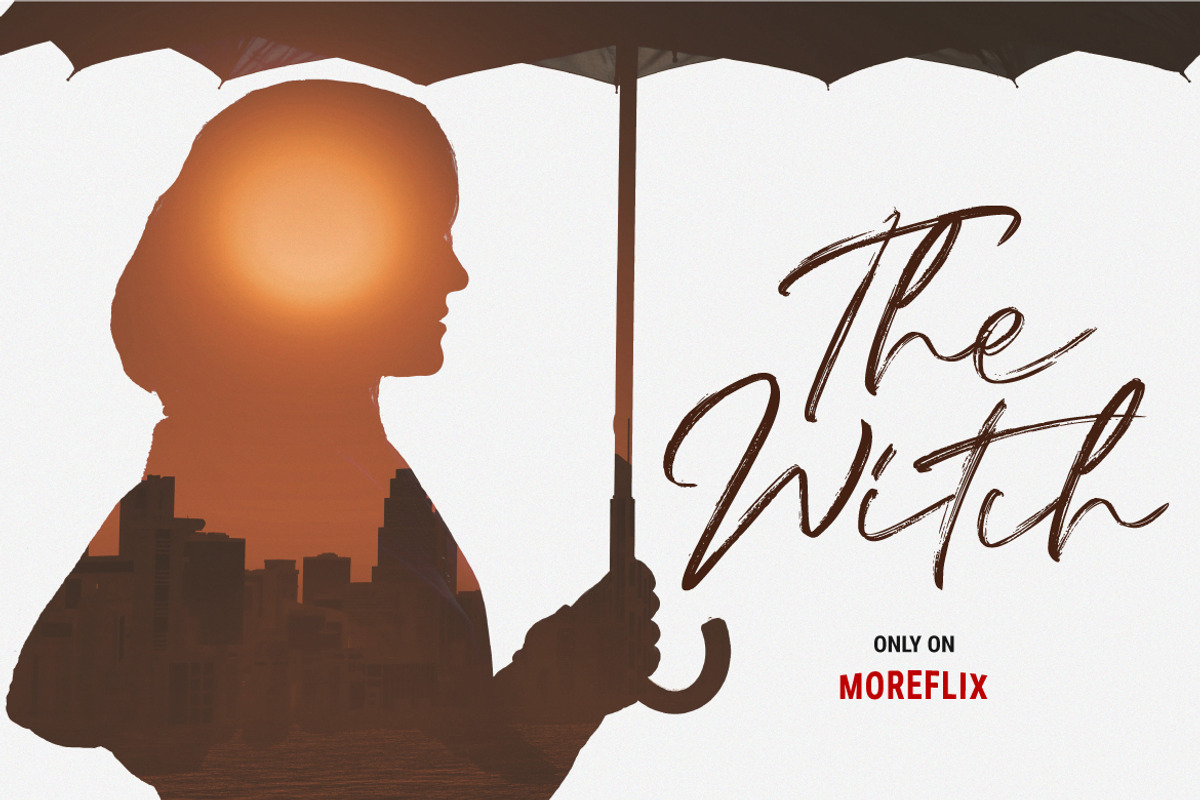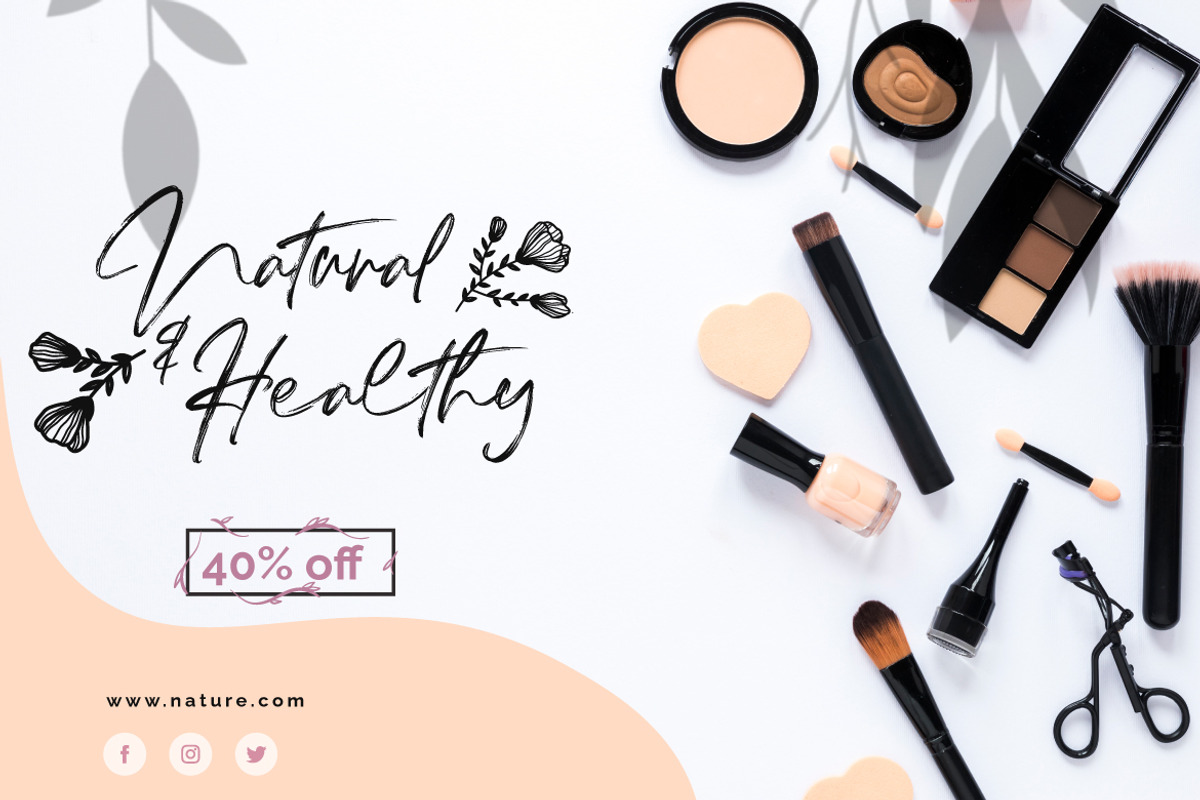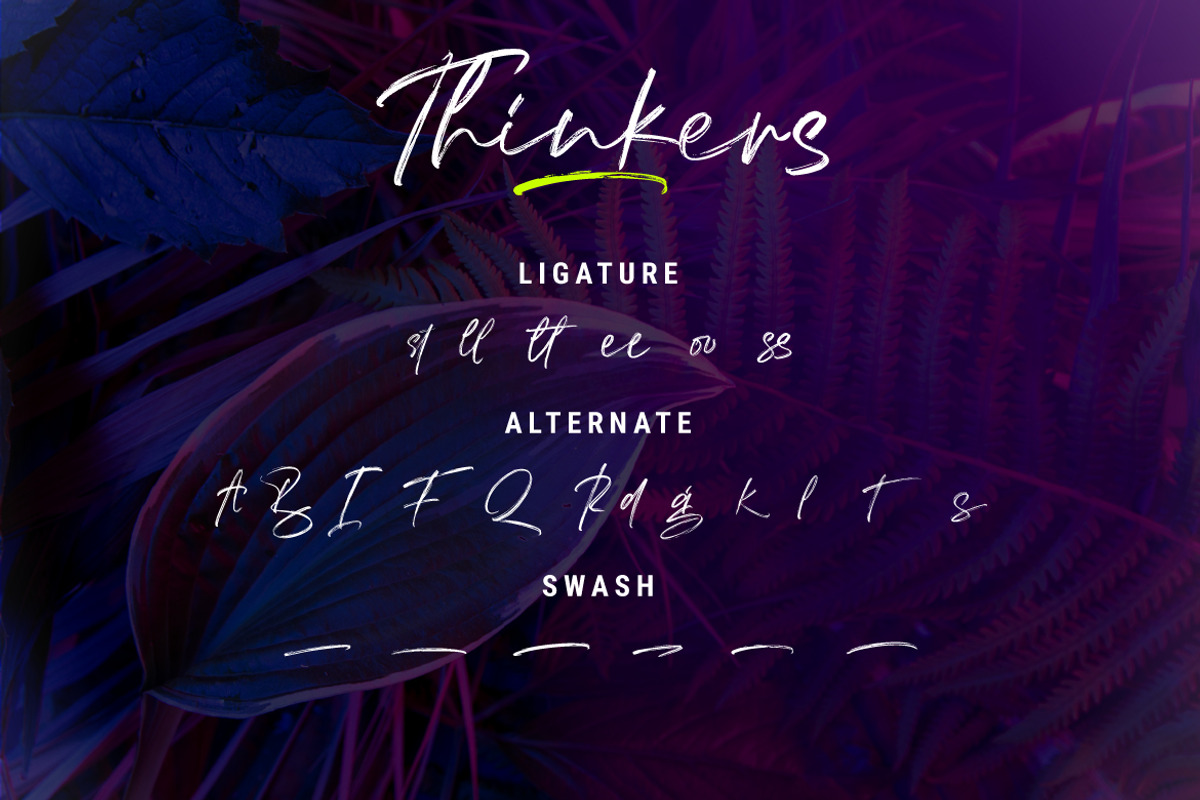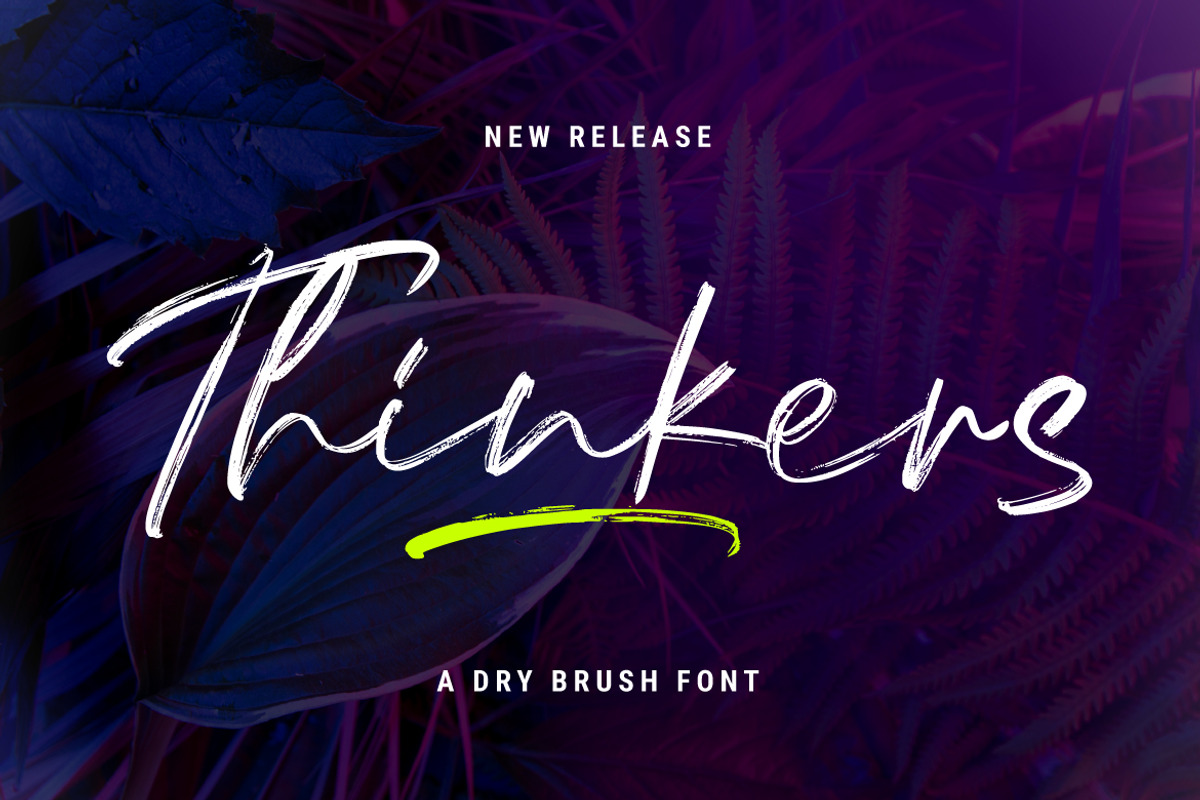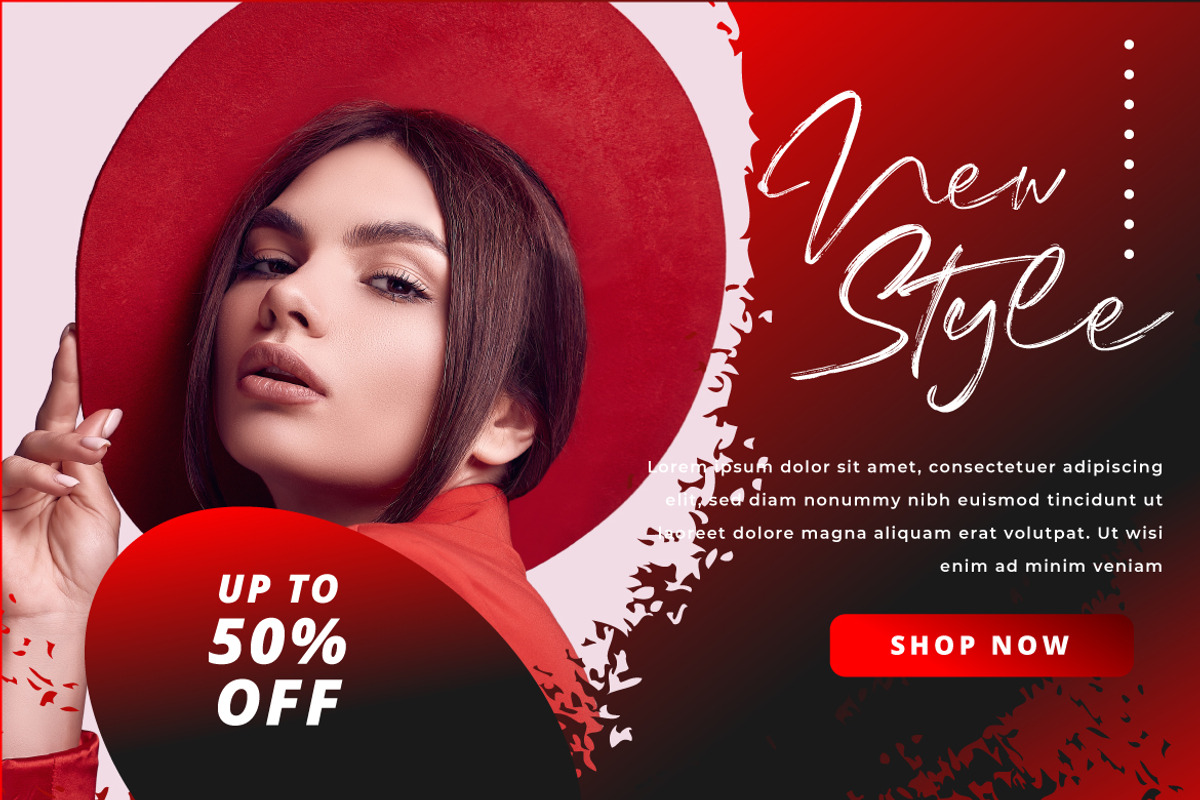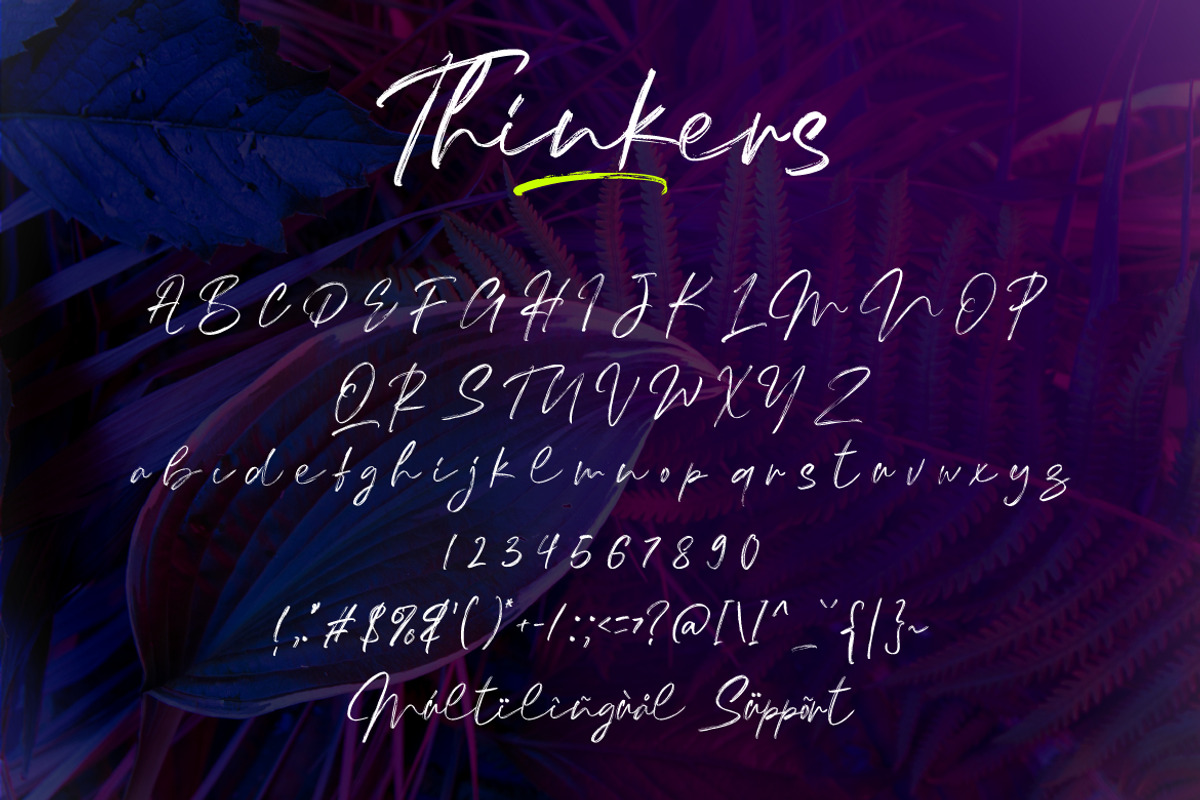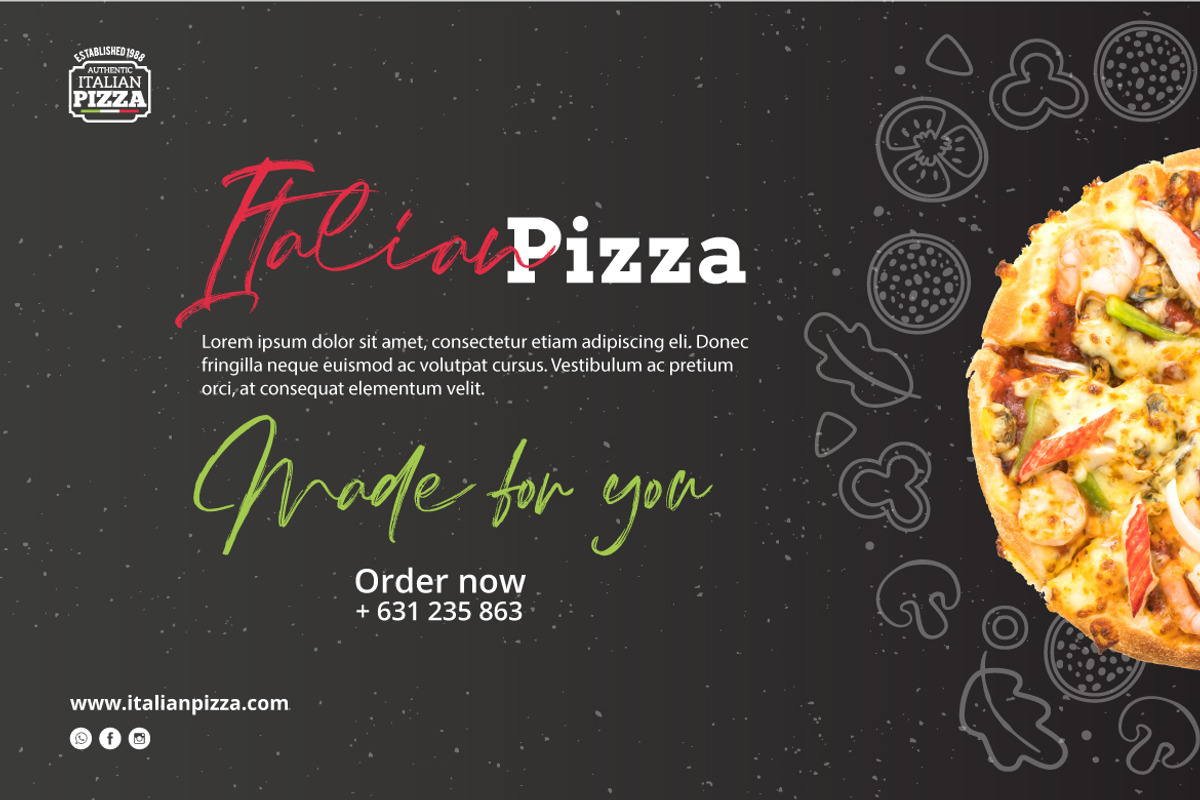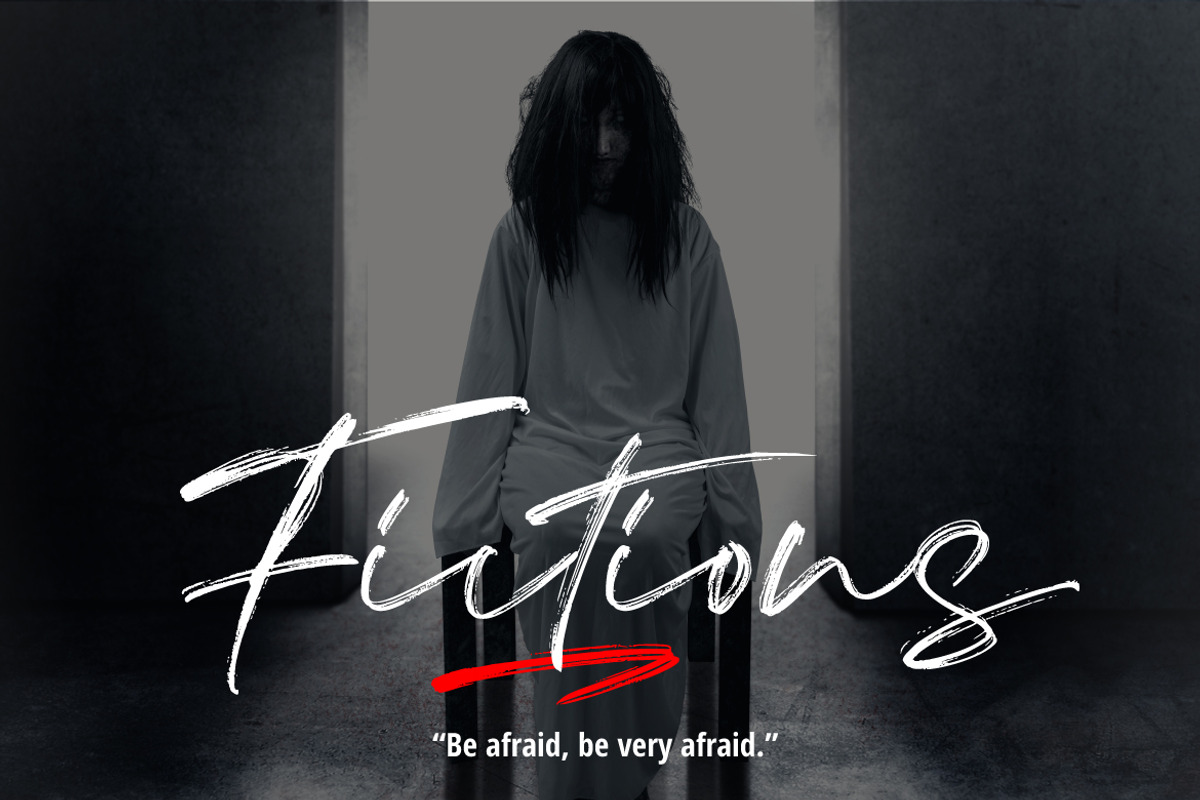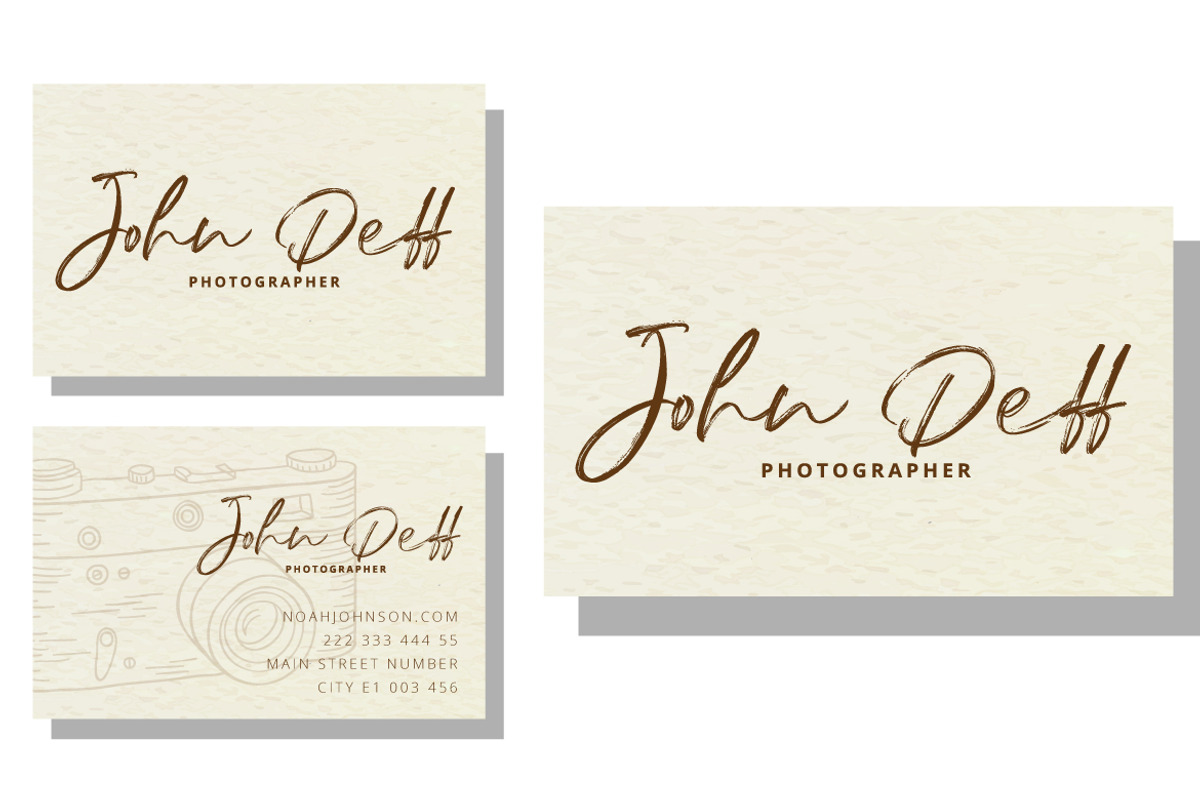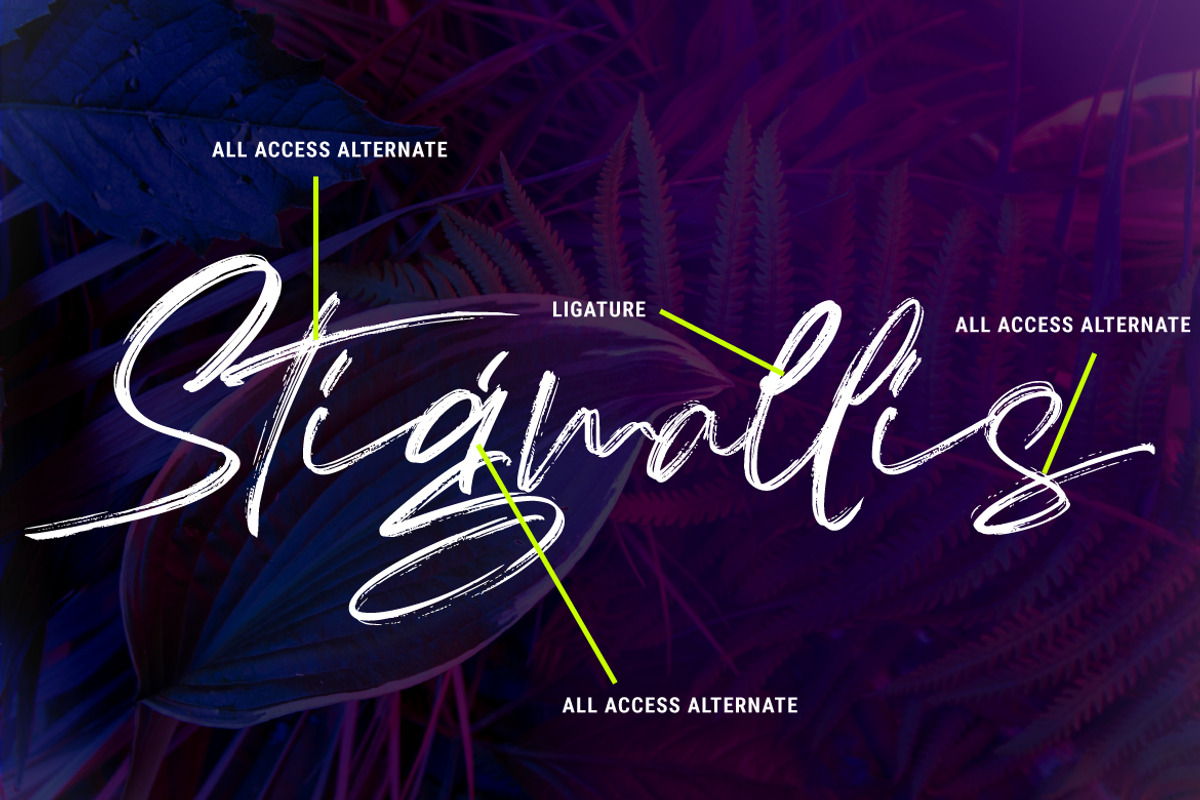
Thinkers - a Dry Brush Font
Thinkers is a strong handwritten brush script with bold and casual style. This handmade fonts comes with great legibility and readability.
Each stroke is carefully drawn to display great flow and harmony with a natural look. You can try many variations by accessing opentype features.
Thinkers are suitable for branding projects, clothing companies, advertising, product packaging and a variety of your creative projects.
- Numerals and Punctuations (OpenType Standard)
- Many of alternates